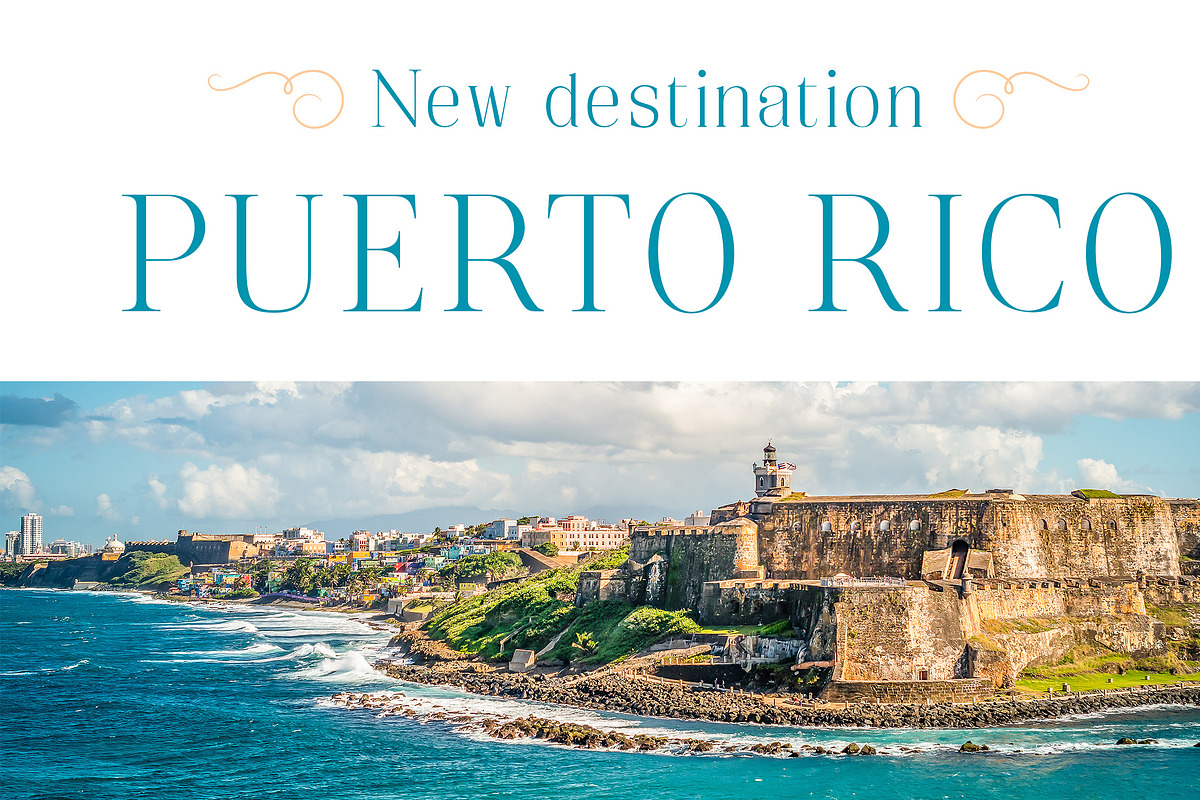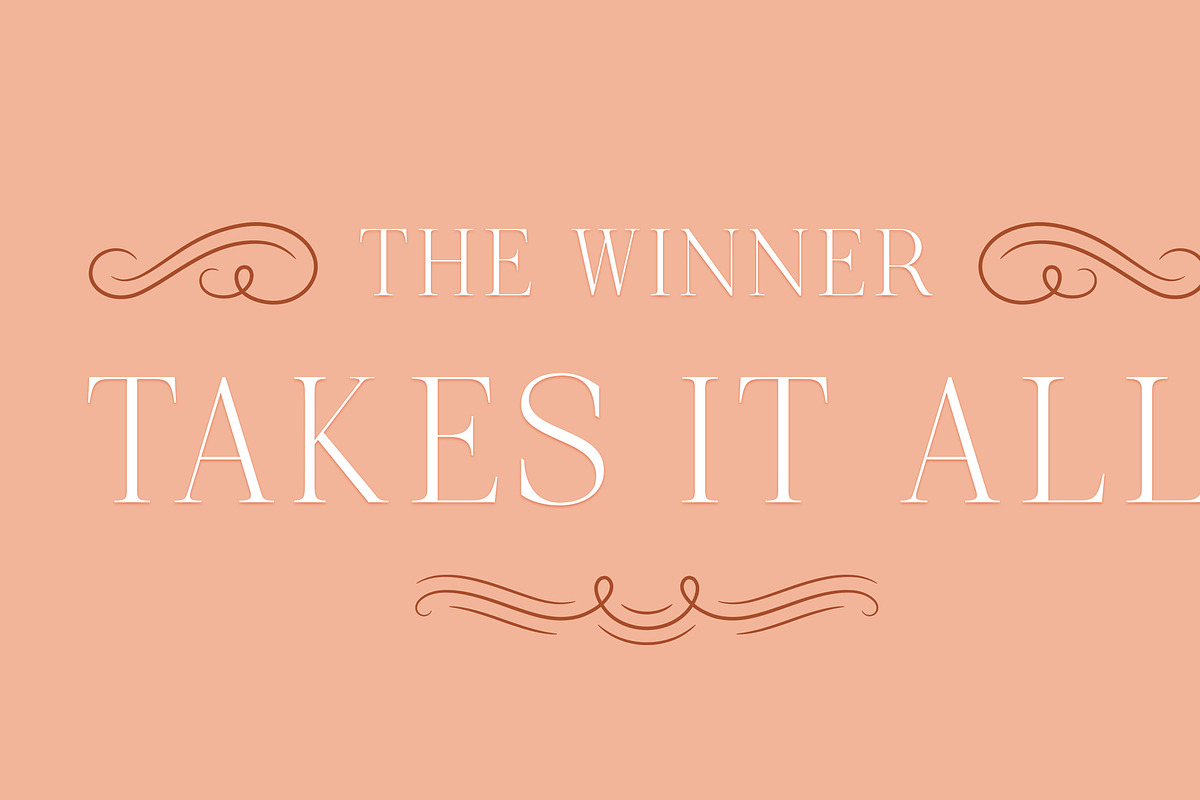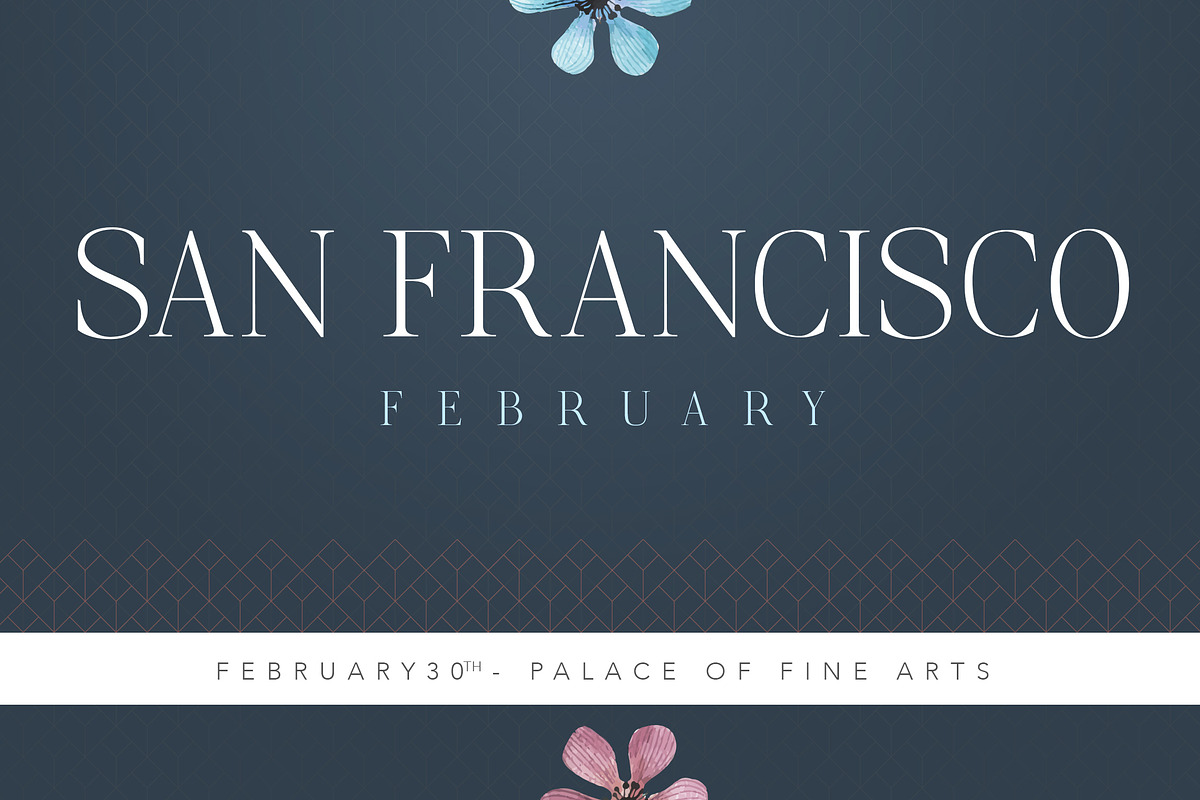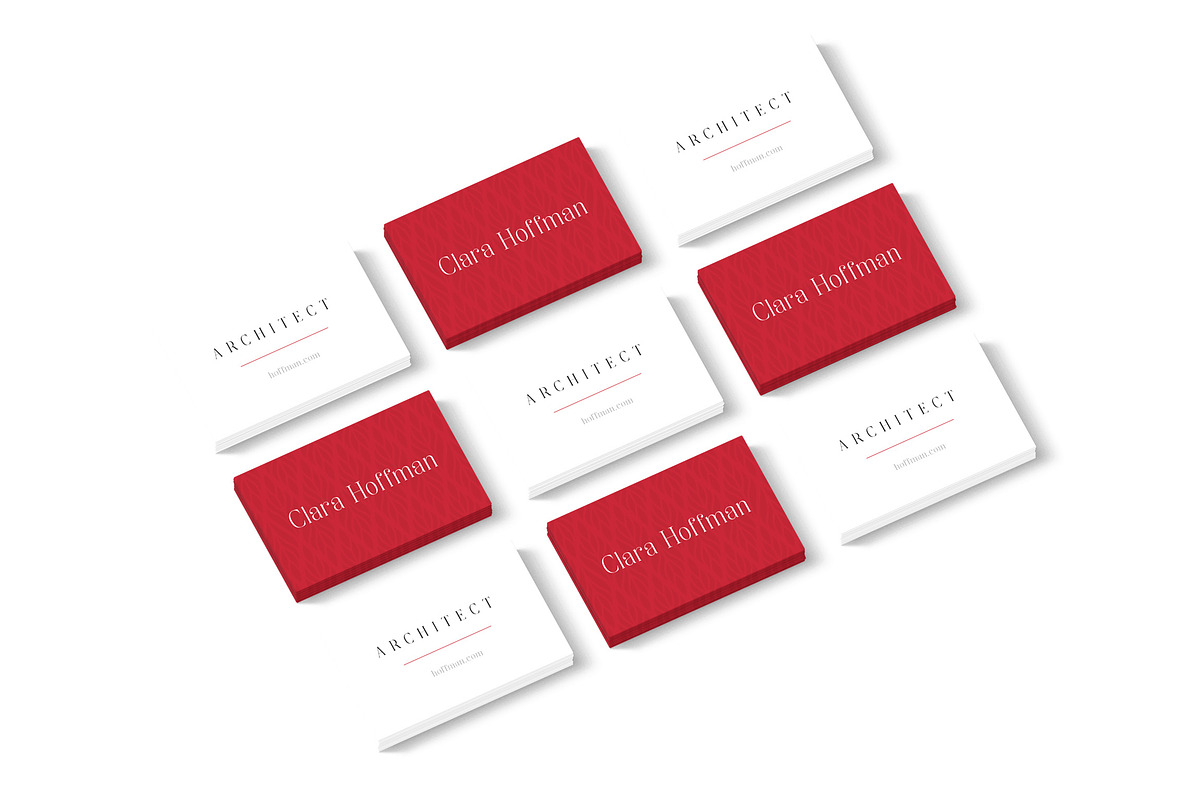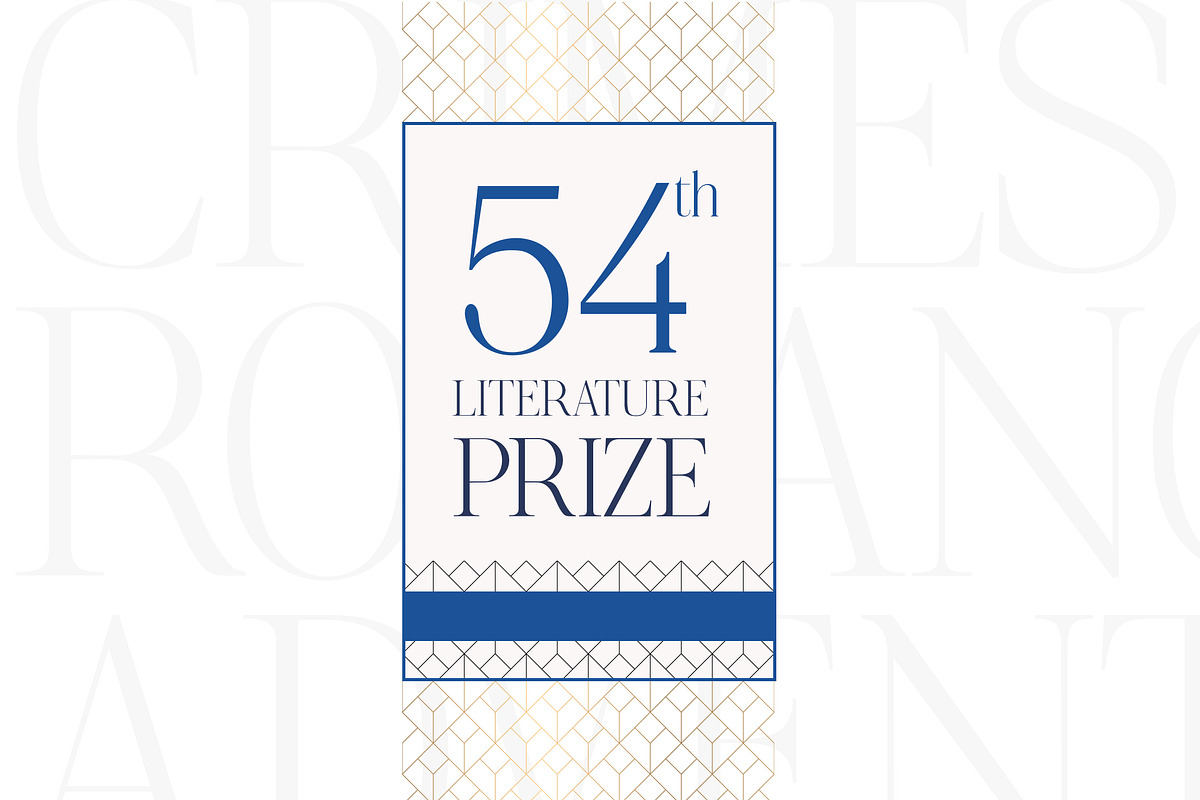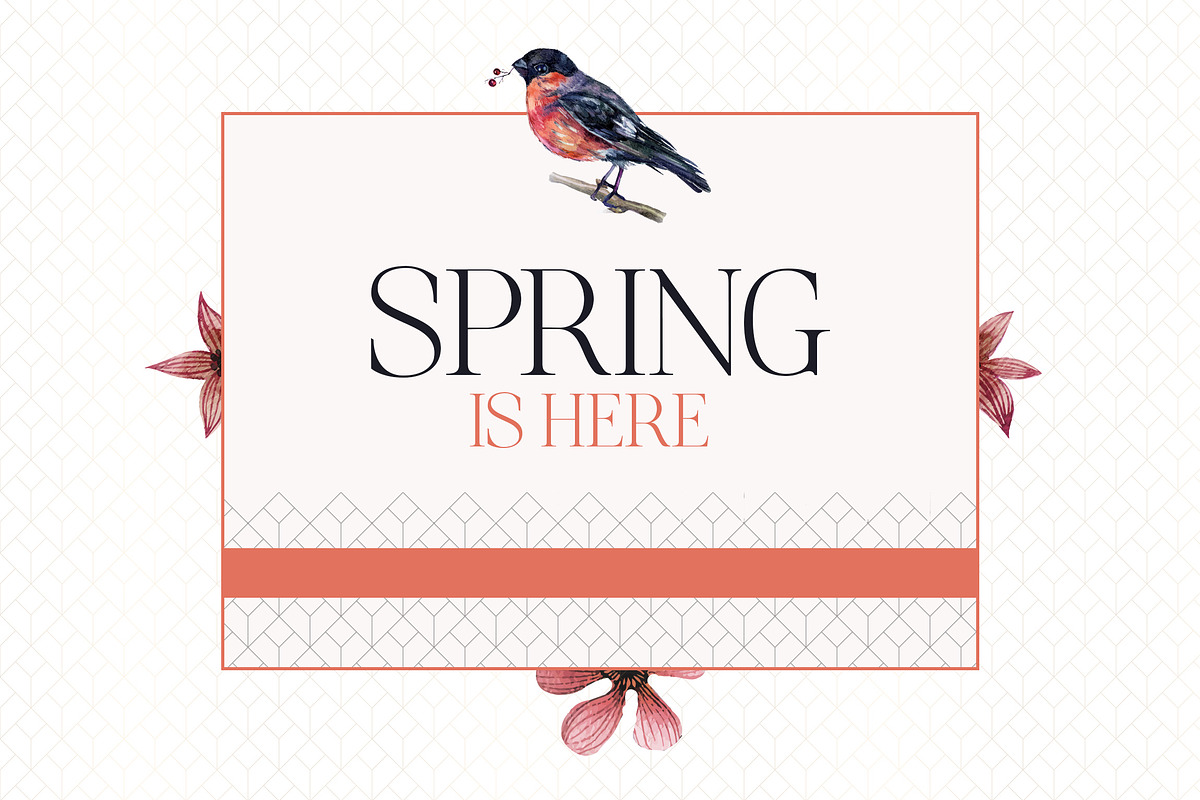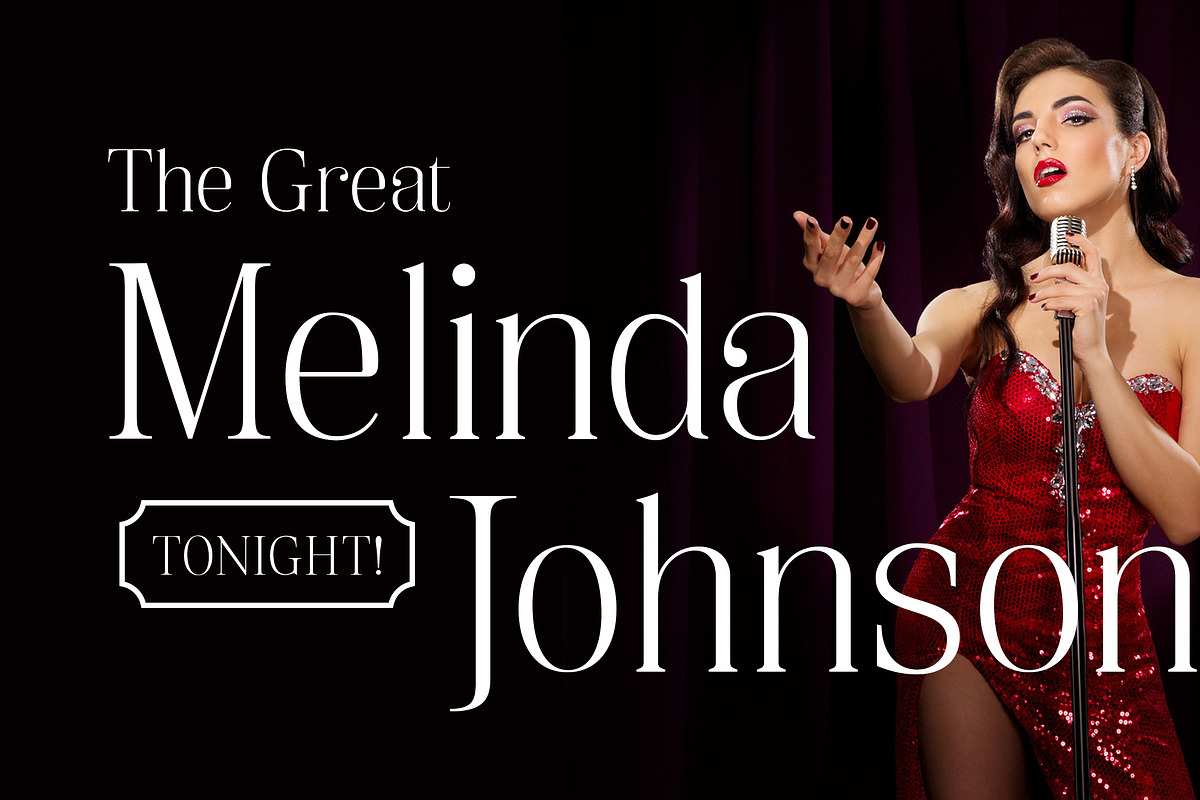
Palash - Feminine Serif Font
Palash is a great typeface for creating beautiful and elegant headlines and logo designs. It works best with large sizes. Features Uppercase and Lowercase. It also works really well with wide spacing.
- Features Uppercase and Lowercase.